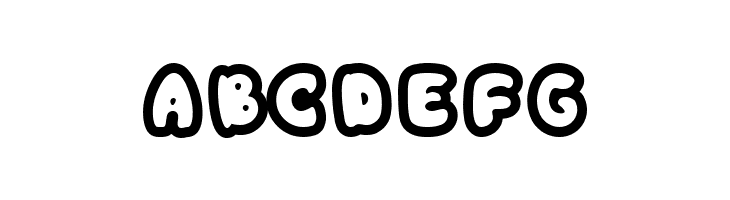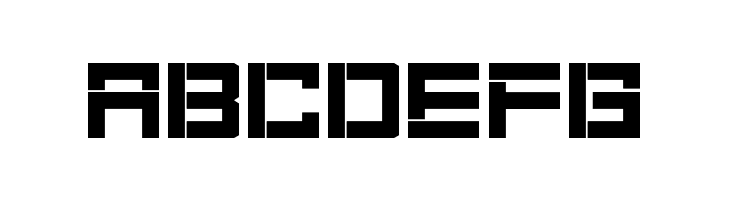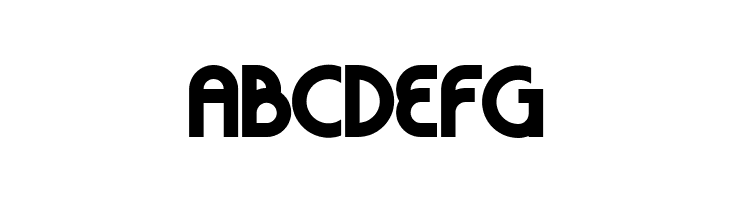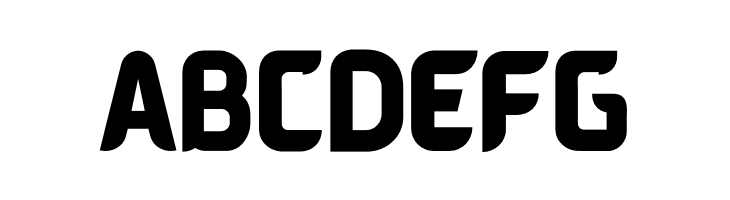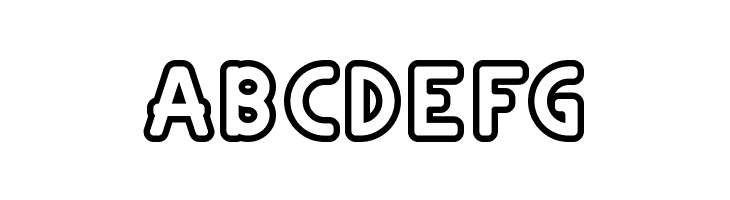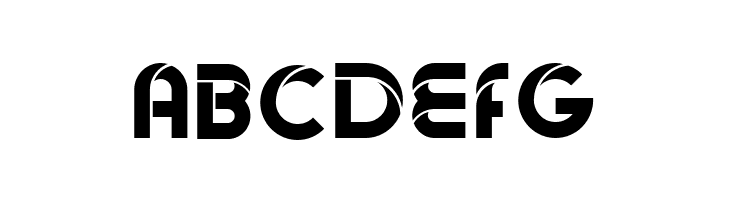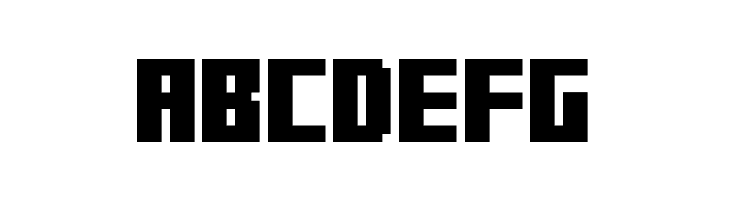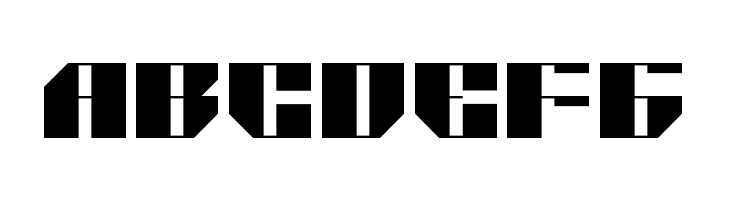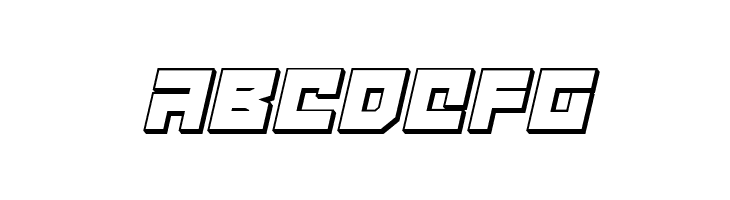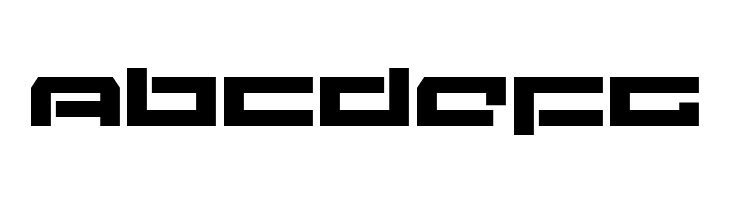
A bold, brushstroke-style font with a dynamic and textured appearance.
A bold, bubbly font with a playful and cartoonish style.
A bold, geometric font with a futuristic and industrial design.
A bold, geometric sans-serif font with a modern and clean design.
A bold, outlined font with rounded edges and a modern aesthetic.
A bold, rounded font with a playful and robust appearance.
A bold, geometric font with a futuristic and dynamic design.
A bold, geometric font with block-like shapes and rounded edges.
A bold, pixelated font with a retro, digital aesthetic.
A bold, geometric font with sharp angles and a modern, industrial aesthetic.
A bold, 3D italic font with a futuristic and dynamic style.
A bold, geometric font with a futuristic, robotic aesthetic.
A bold, decorative font with irregular, playful shapes.
A sharp, angular font with a graffiti-inspired style.
A bold, geometric font with a futuristic, digital style.
A bold, energetic brush-style font with dynamic strokes and a hand-drawn appearance.
A tall, condensed font with a modern and sleek appearance.
Bold, geometric icons representing various gender identities.